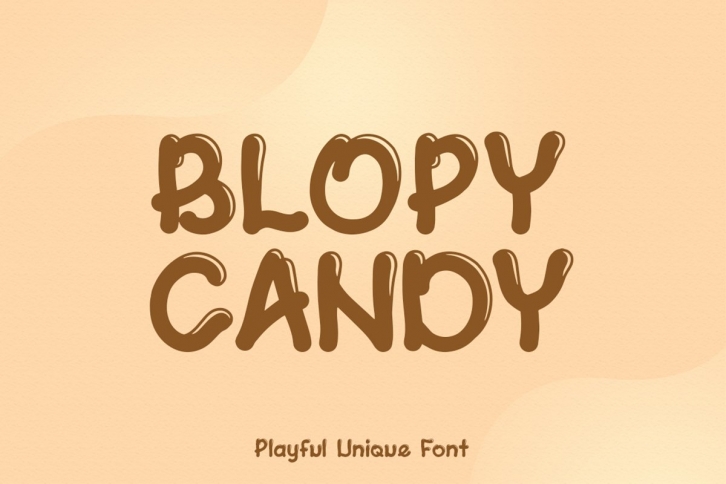
BLOPY CANDY is a trendy and unique font with an authentic style. It was designed by typelinestudio and it's a great choice for creative people who need such a font. It was released on June 5, 2022 and the file size is 1.19 MB. BLOPY CANDY will add an organic vibe to any design idea!